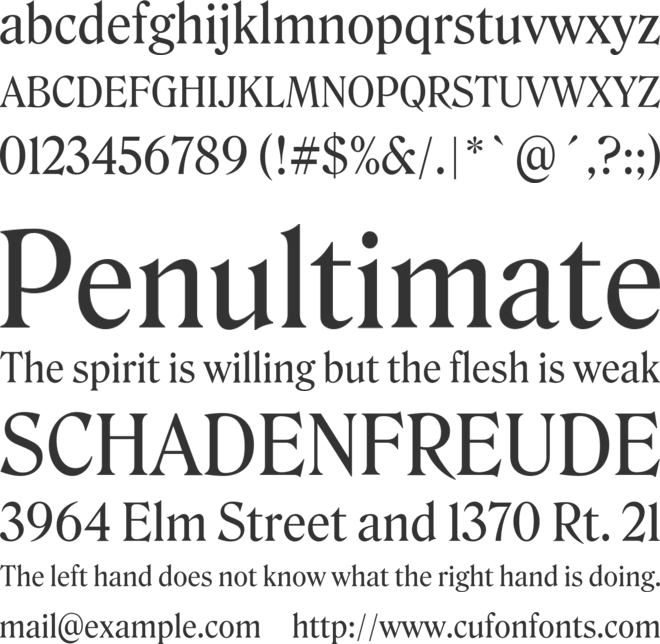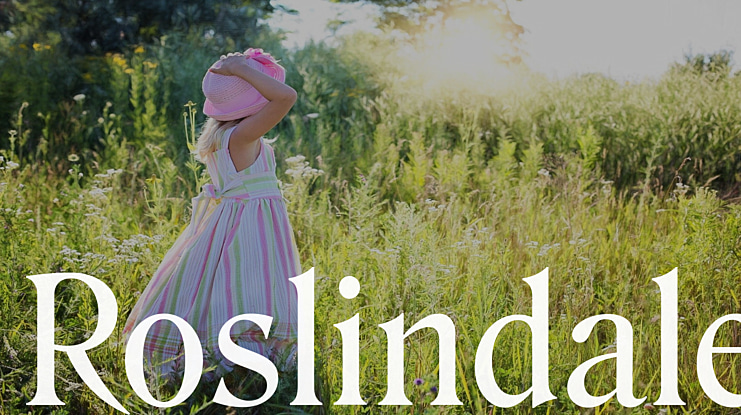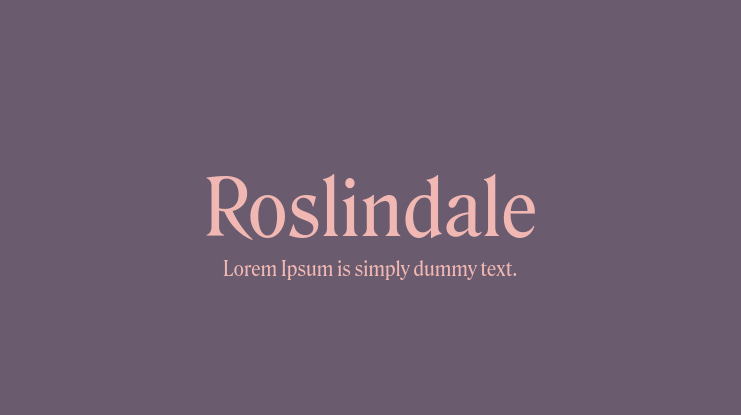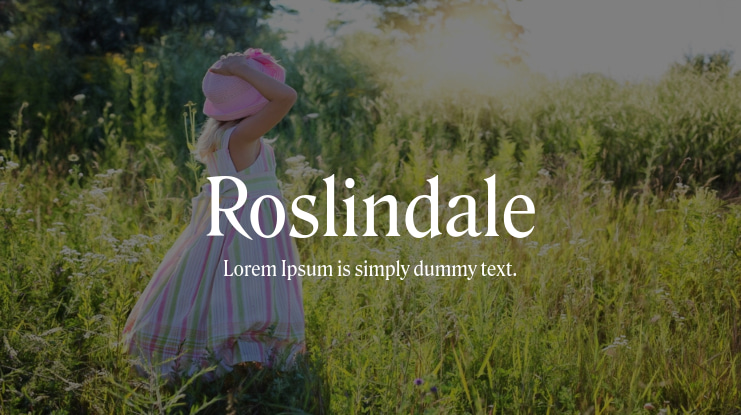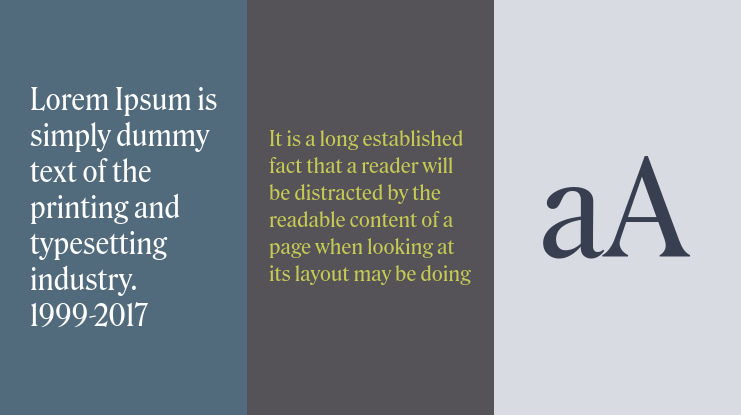
Roslindale Font Family
Roslindale is a text and display serif that takes its inspiration from De Vinne, a typeface named for the famed nineteenth century printer and attributed to Gustav Schroeder and Nicholas Werner of the Central Type Foundry. De Vinne was an oldstyle that couldn’t shake its Victorian sensibilities, designed in a time that was so immersed in the upright Modern style that folks seemed to forget what diagonal stress actually looked like. Roslindale smooths out the clunkiness of the original and dials up the contrast, flirting with the slickness of 1970s interpretations such as ITC Bernase. Sure it can be a bit cheesy at times, but aims for a creamy brie instead of a stinky bleu. Roslindale is designed by David Jonathan Ross and is available for print, web, app, and e-book licensing at djr.com/roslindale.